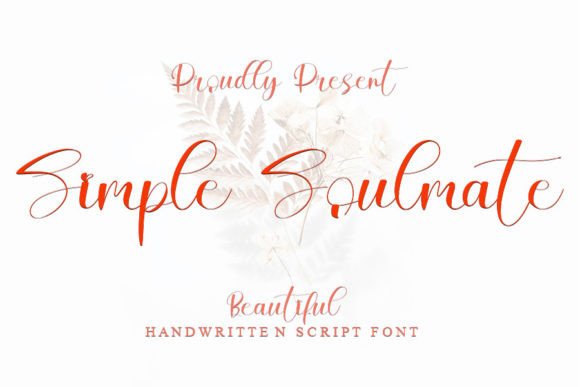
Unleash the magic of handwritten elegance with "Simple Soulmate Font"! This charming script font, crafted by FreshTypeINK, holds a special place in the world of typography. Each letter dances with grace and romance, inviting you to weave enchanting tales through your creative projects. Step into a world where your words come alive, embraced by the warmth and sophistication of "Simple Soulmate".
Visualize your business checks adorned with this exquisite font, transforming them from ordinary pieces of paper into works of art. Let your clients feel the sincerity and dedication you pour into your business with every check they receive. "Simple Soulmate" adds a personal touch that speaks volumes about your commitment to excellence.
Dive into the limitless possibilities of "Simple Soulmate". Its versatility knows no bounds, making it the perfect choice for a multitude of projects. Create eye-catching headlines that demand attention, design captivating greeting cards that convey heartfelt sentiments, and craft social media posts that exude elegance and charm. With "Simple Soulmate", your creativity becomes boundless.
Embrace the beauty of handwritten artistry and elevate your designs to new heights. Let "Simple Soulmate" be your creative companion, guiding you towards projects that captivate and inspire. Its romantic essence will infuse your words with charm and grace, leaving a lasting impression on all who encounter them.
Step into a world of handwritten elegance with "Simple Soulmate". Experience the magic of a font that transforms the ordinary into the extraordinary.